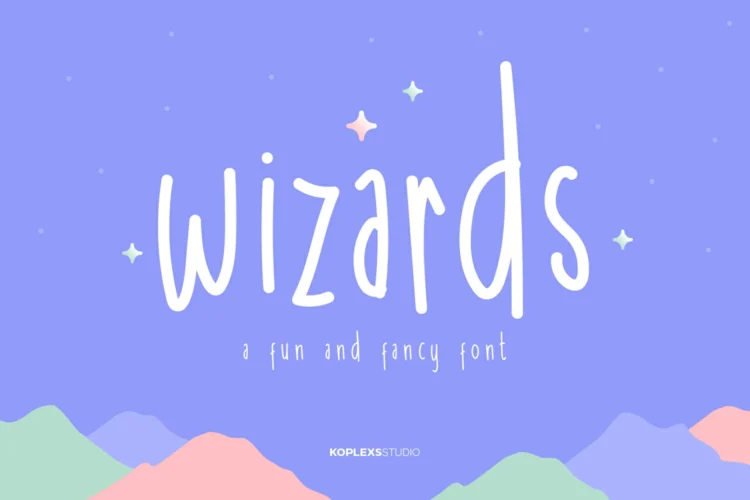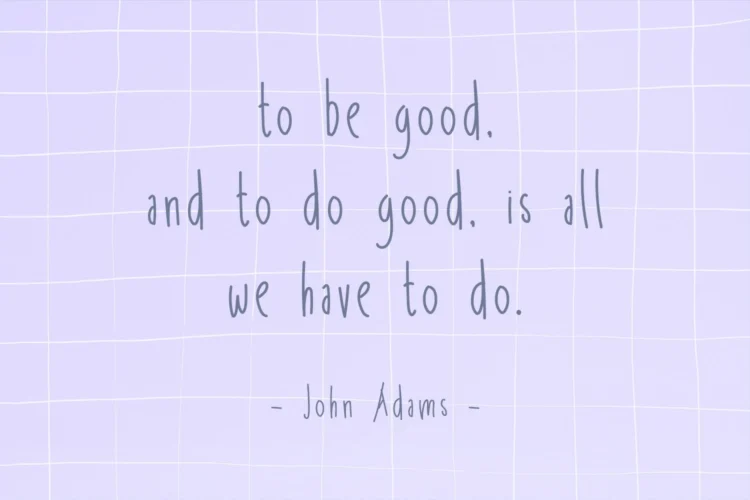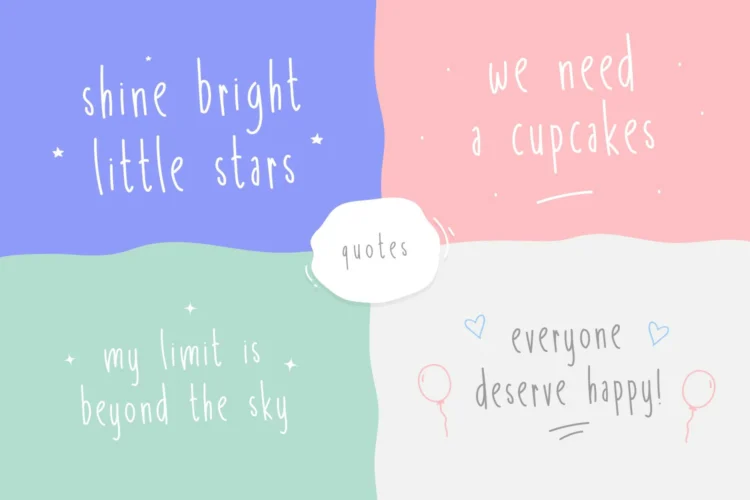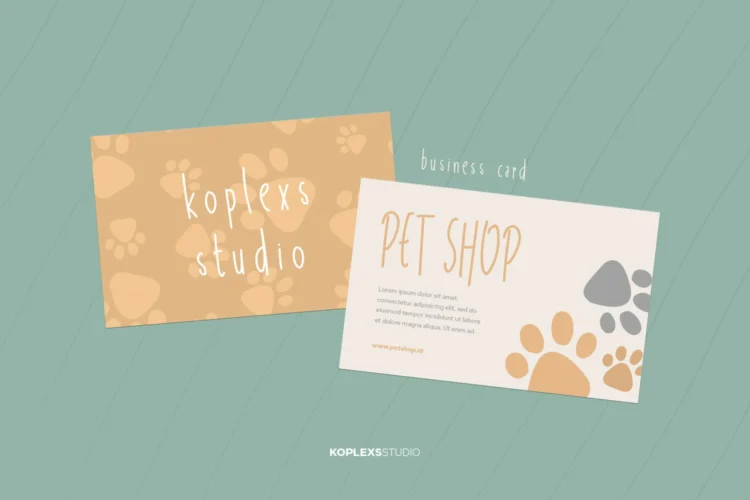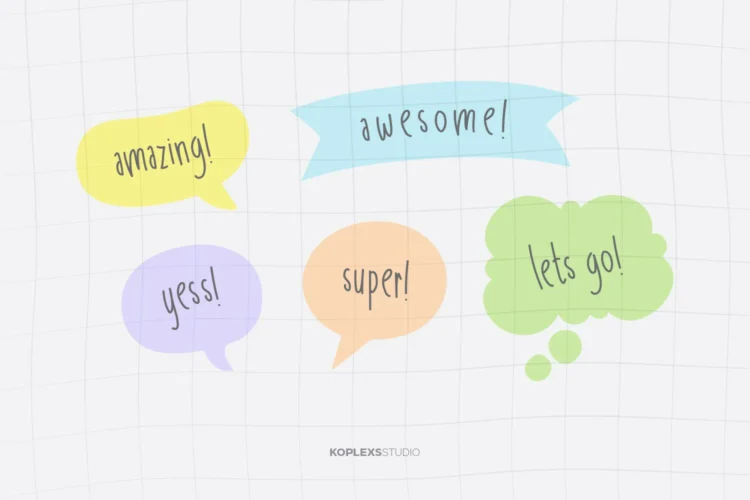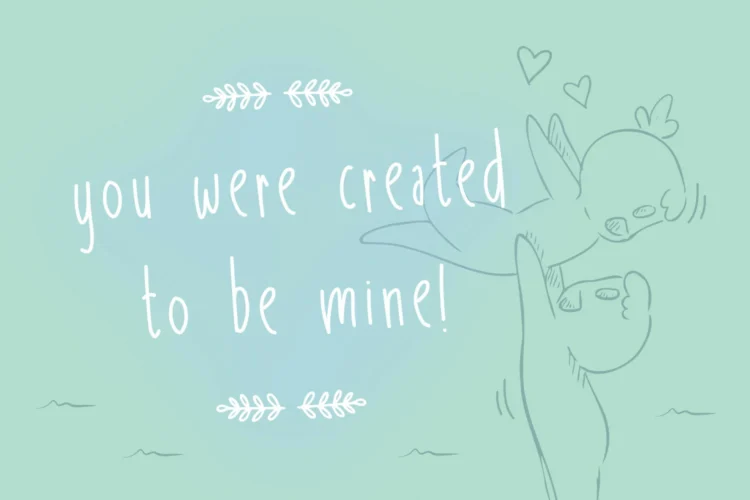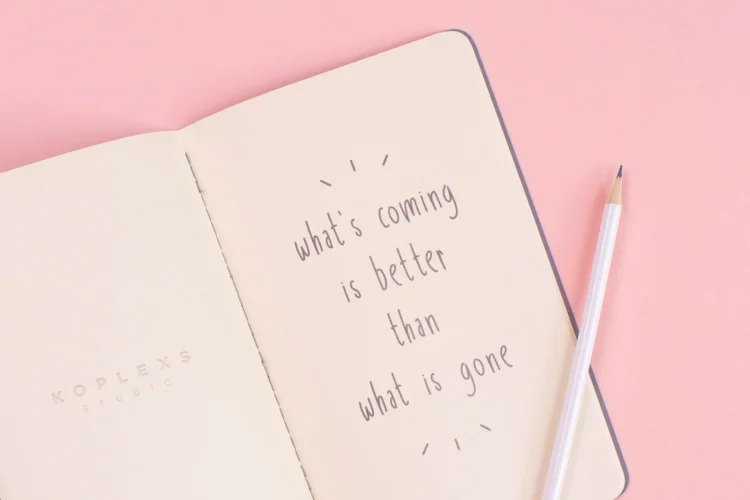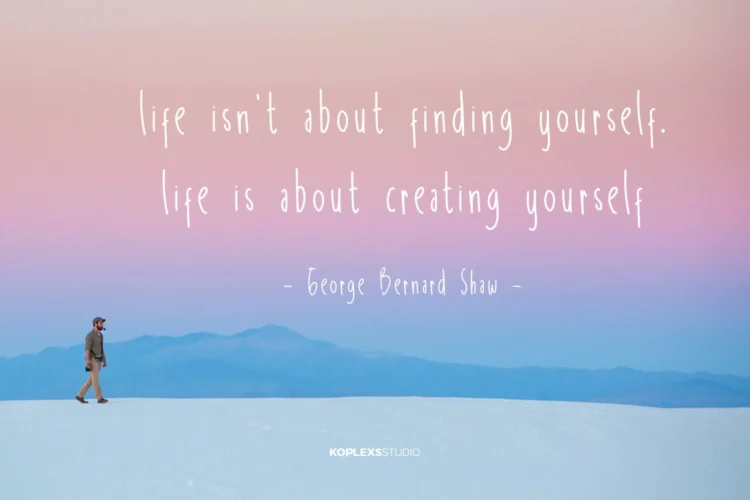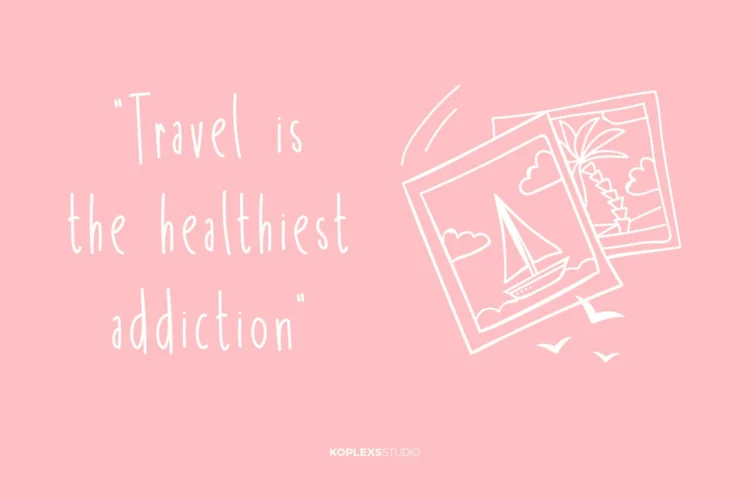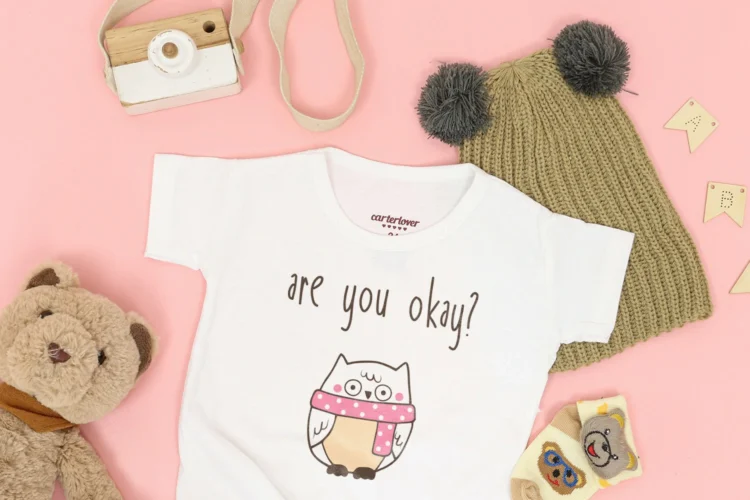
Wizards Font – A Playful and Fancy Display Typeface
Wizards Font is a display font that blends the charm of a cute font with the stylish personality of a fancy font, making it one of the coolest fonts for modern design projects. With its whimsical strokes and fun character, this playful font is perfect for projects that need a touch of magic, joy, and uniqueness.
Whether you’re working on branding fonts for businesses, creating logo fonts for startups, or looking for style fonts that stand out, Wizards Font delivers with a versatile design that is both trendy and timeless.
As part of the new wave of modern fonts, Wizards Font balances between elegant font vibes and a luxury font impression, while staying fun and approachable. It belongs to the poster font and heading font family, bringing high readability without losing its quirky and friendly charm.
Wizards Font Perfect for :
Branding & identity projects
Cute & playful logos
Posters and flyers
Social media graphics
Fun packaging & merchandise
Quotes, cards, and stationery
Headings, titles & banners